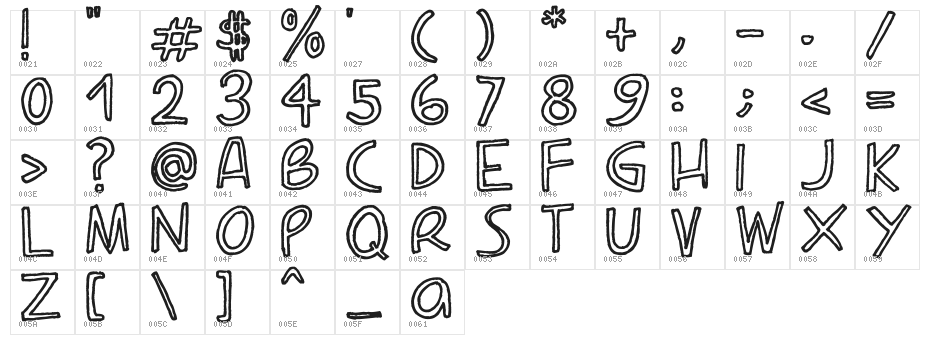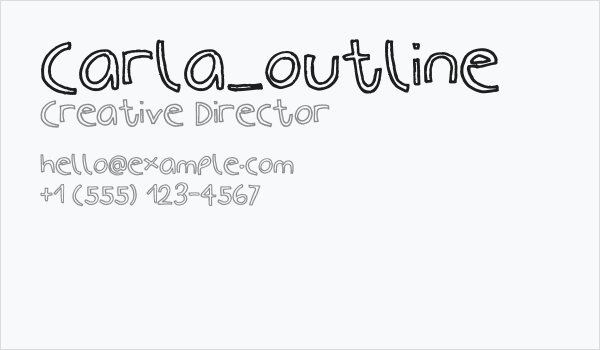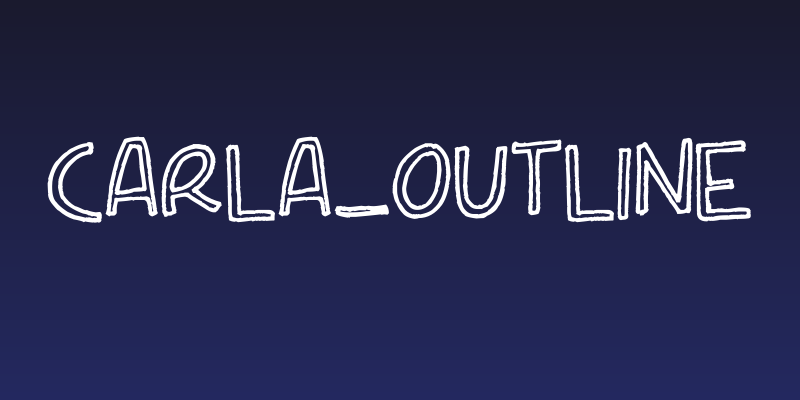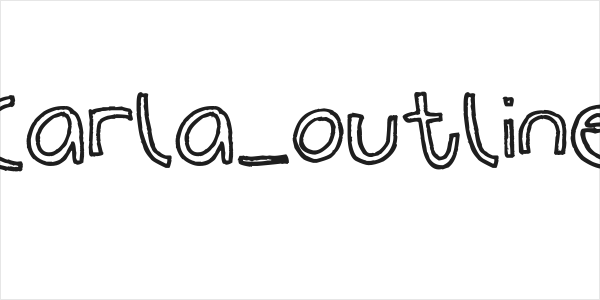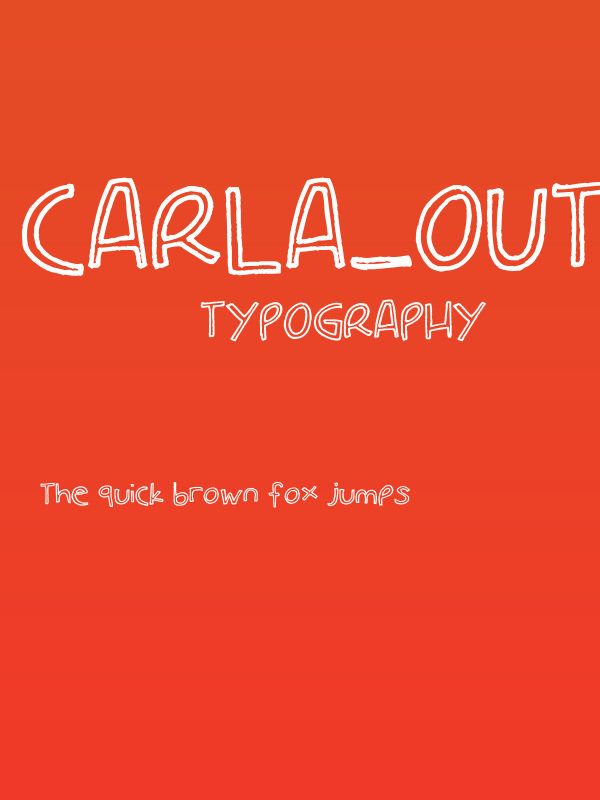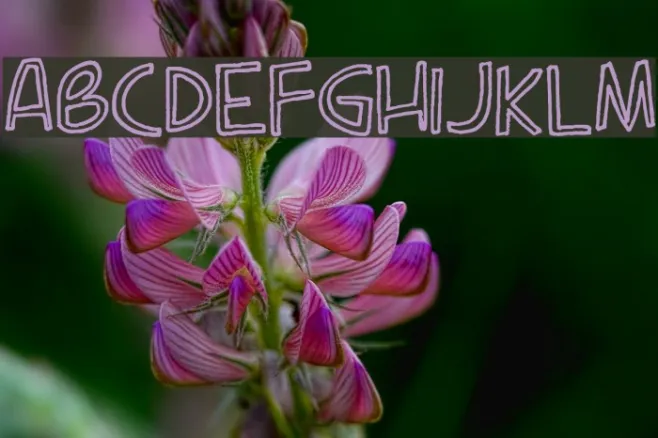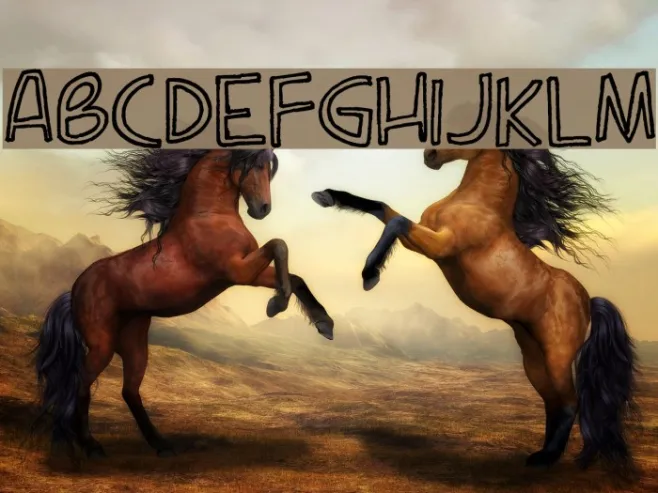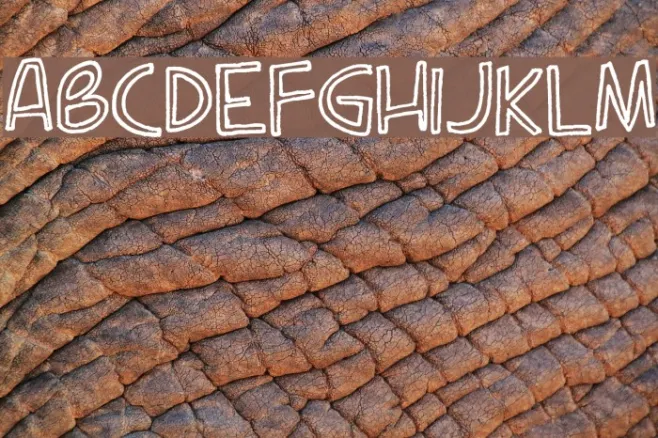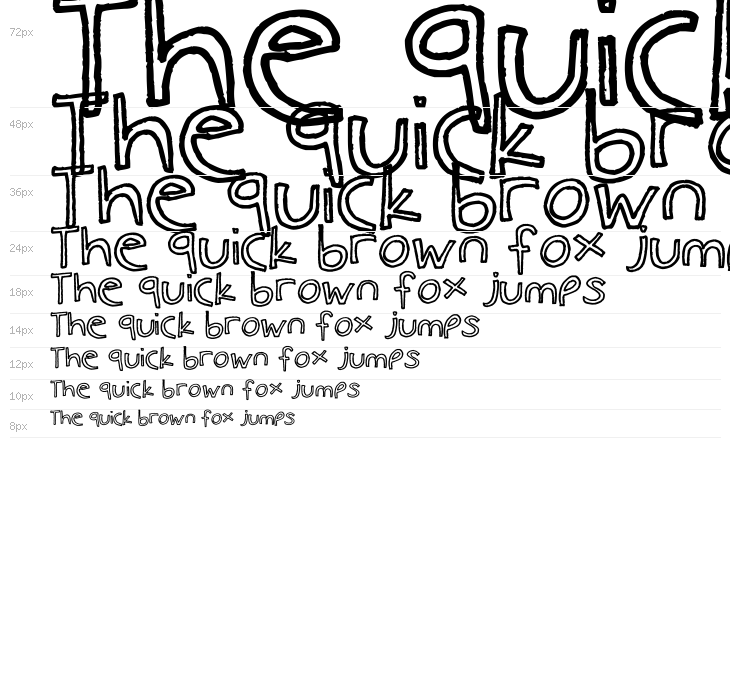
Carla_outline Font
Carla_outline Description
This playful and whimsical font features an outlined style that gives it a hand-drawn, artistic appearance. The characters are bold and rounded, with a consistent thickness throughout each letter, creating a cohesive look. The uppercase and lowercase letters maintain a casual and friendly vibe, making it suitable for informal and creative projects. The numerals and special characters follow the same outlined style, ensuring uniformity across all glyphs. This font exudes a sense of fun and creativity, perfect for projects that aim to capture attention with a unique and engaging design.
| Overall Style | Playful, Artistic |
| Proposed Projects | Ideal for children's books, creative posters, playful branding, and DIY crafts. |